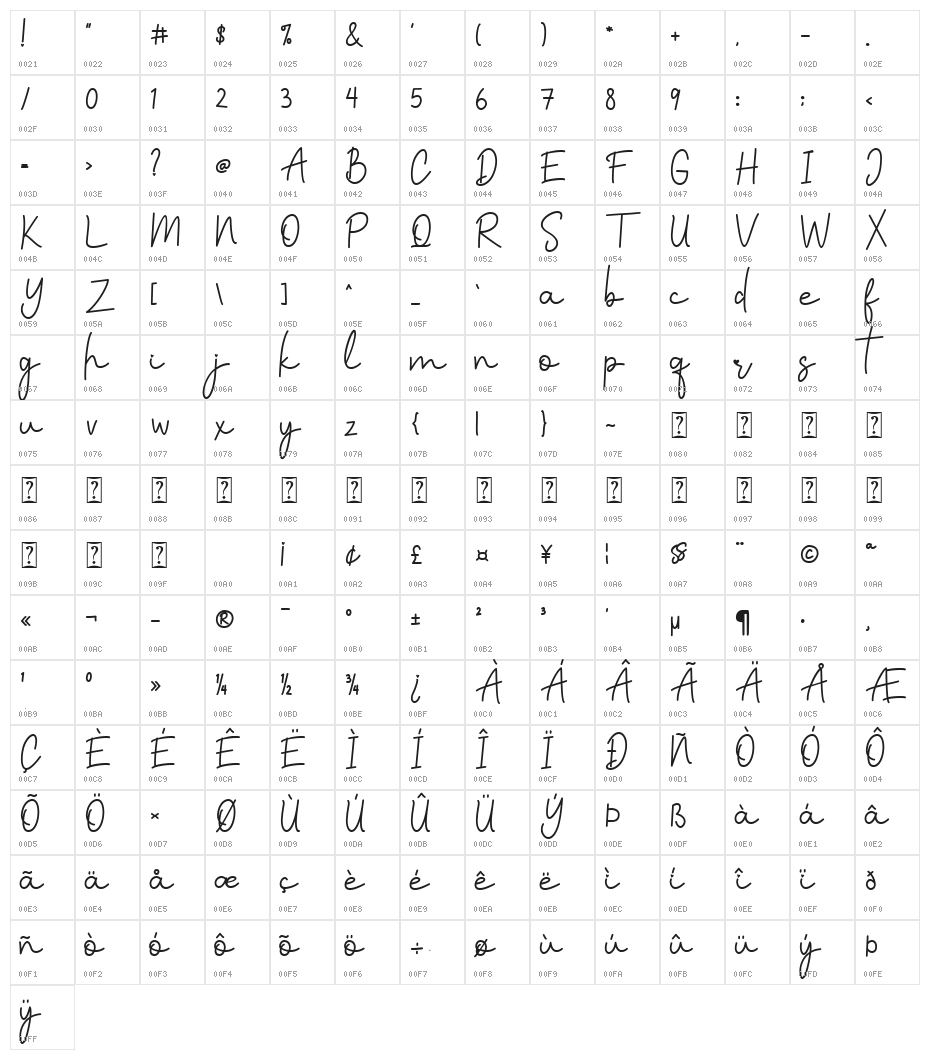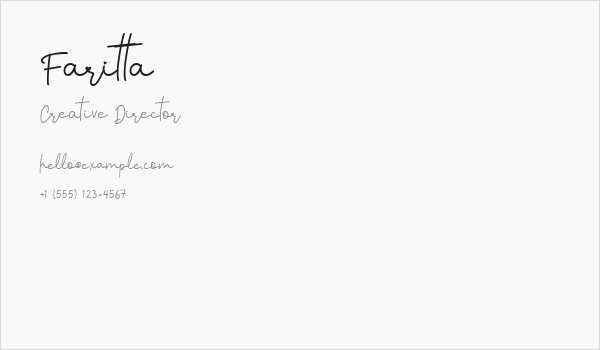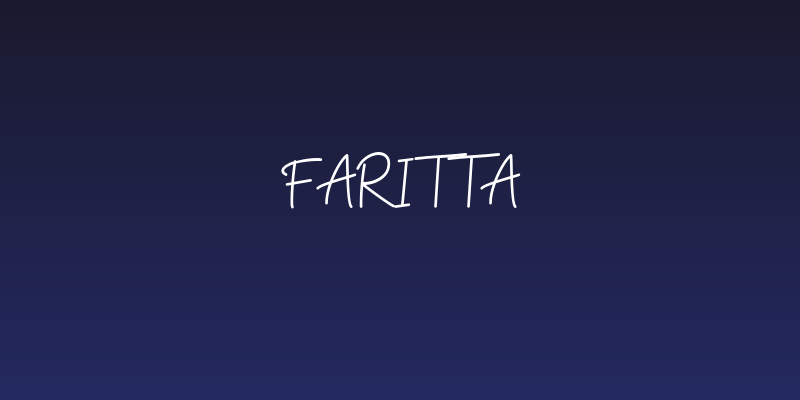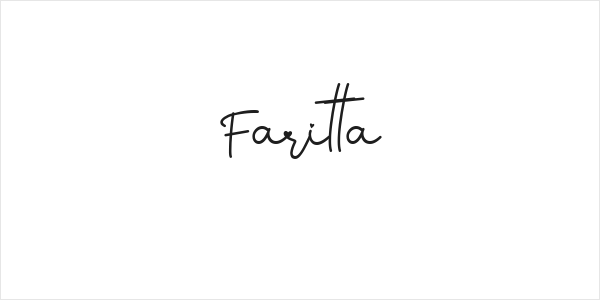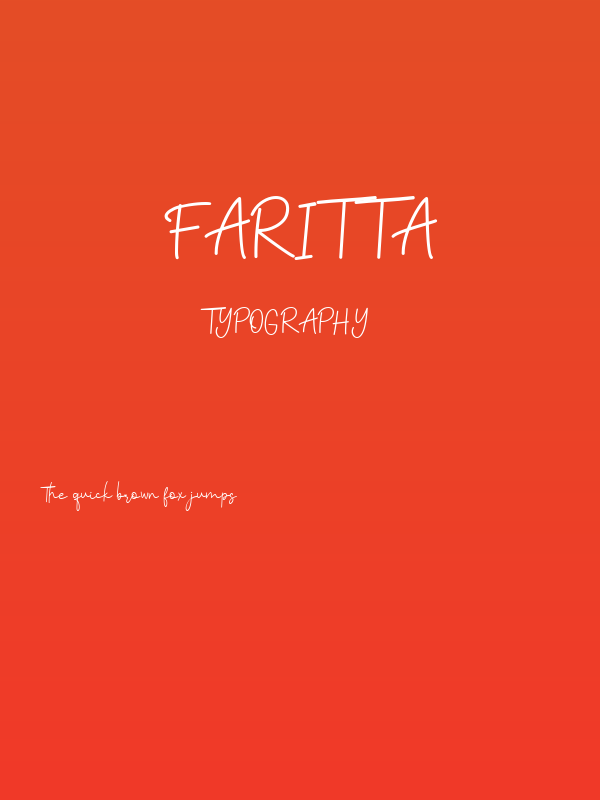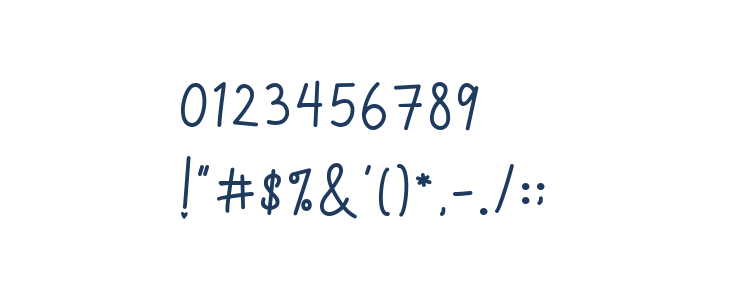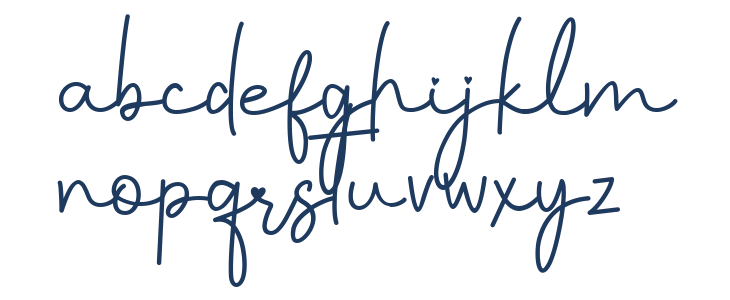
Faritta Font
Faritta Description
This font exudes a playful and casual handwritten style, characterized by its flowing, cursive-like strokes. The uppercase letters are bold and slightly slanted, giving a sense of movement and energy. The lowercase letters maintain a consistent flow, with some characters featuring unique loops and curves that add to the font's charm. The numerals are clear and legible, matching the overall style of the alphabet. Special characters are well-integrated, maintaining the font's cohesive look. The font's overall appearance is friendly and approachable, making it suitable for a variety of creative projects.